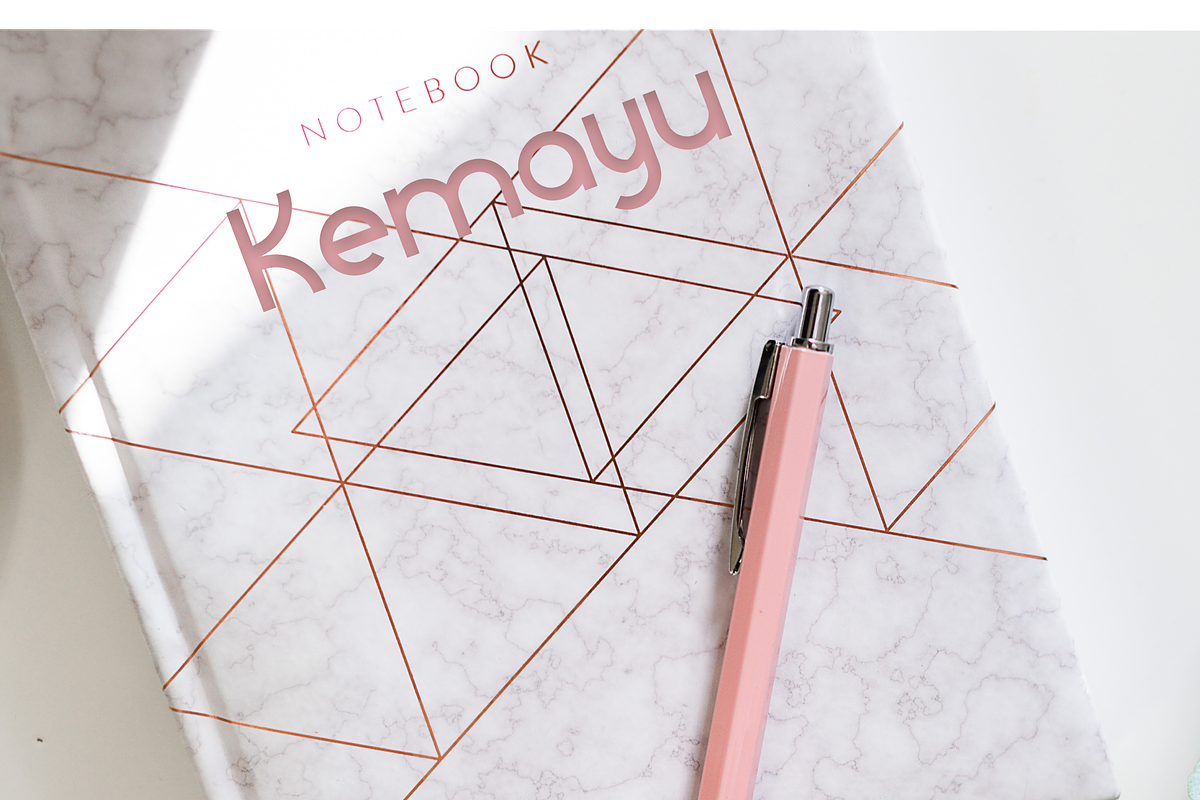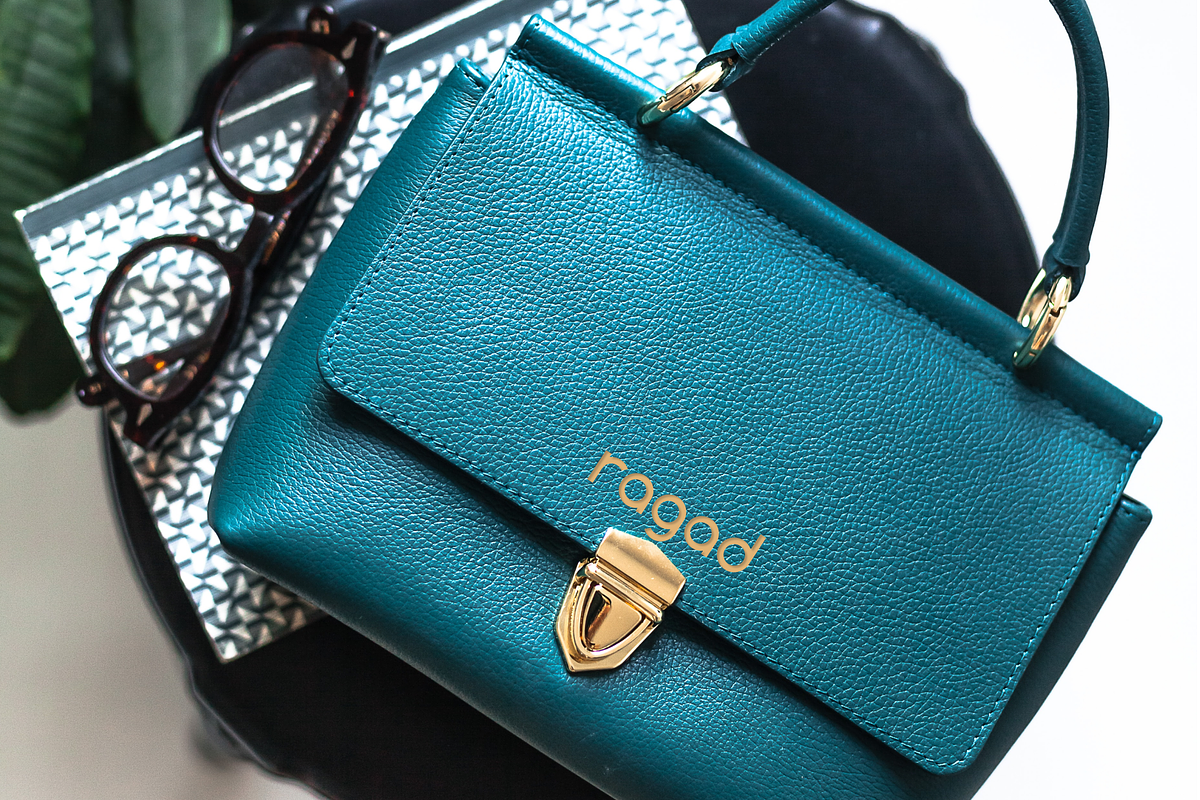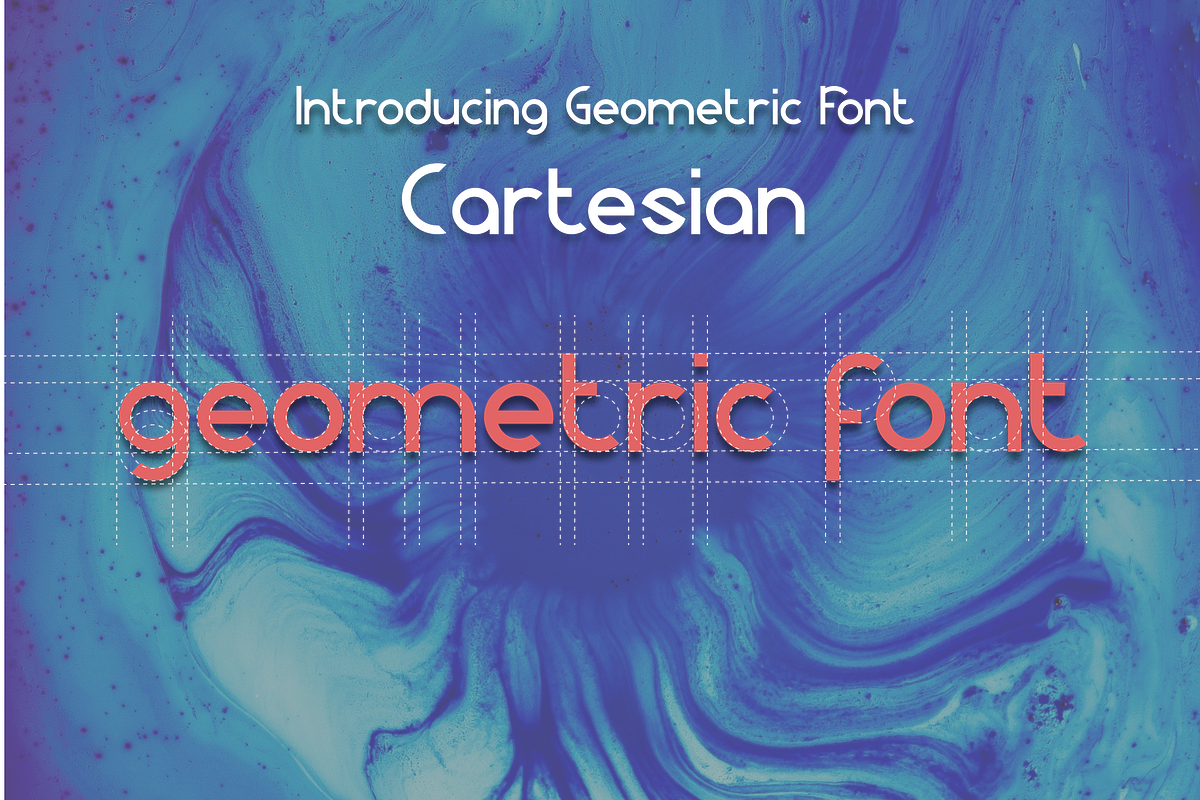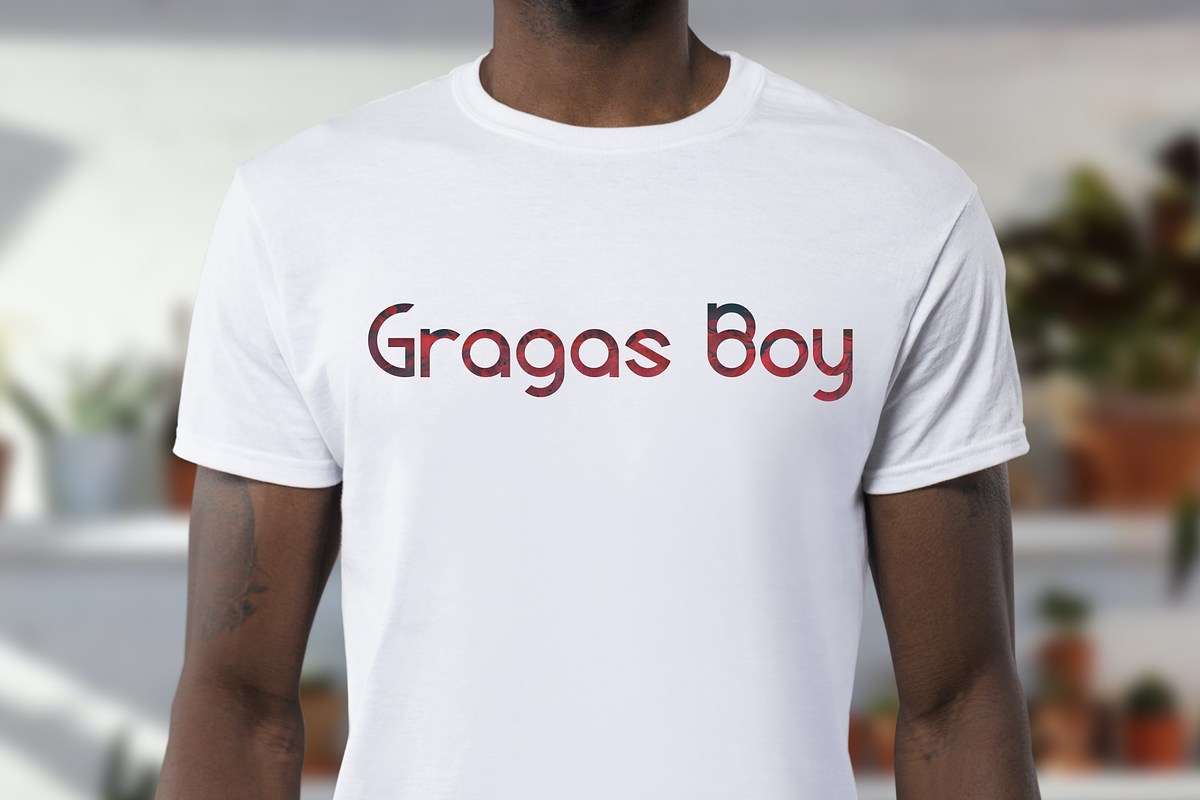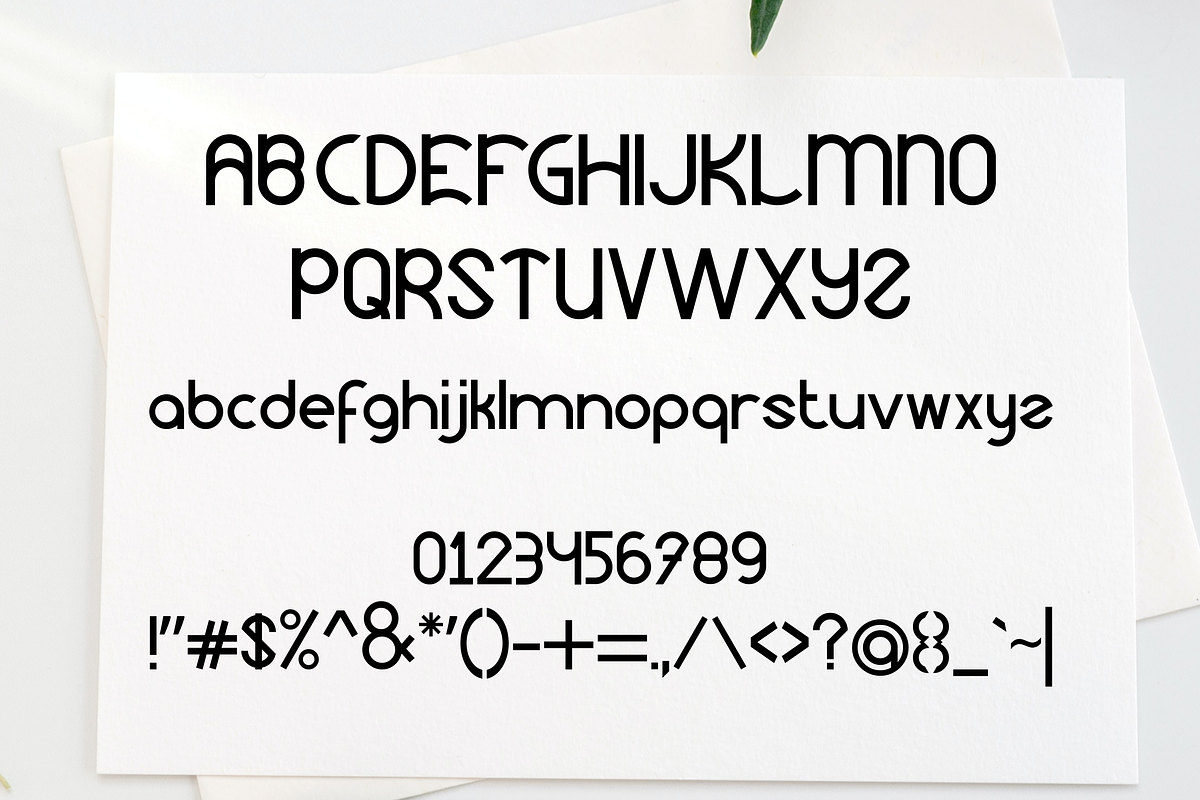
Cartesian Sans Serif Font
Cartesian is a typeface inspired by the beauty of geometry style with smooth touches. Cartesian offers many possibilities to be applied in many graphic designs or game designs with space themes. Perfect choice for people looking for accurate, modern, minimalist, strong but smooth, design style. Suitable for almost any graphic design such as branding materials, games font, logos, business cards, gift cards, t-shirts, covers, thumbnails, prints, posters, etc.